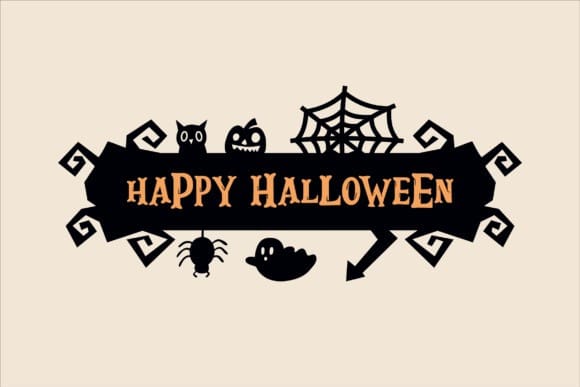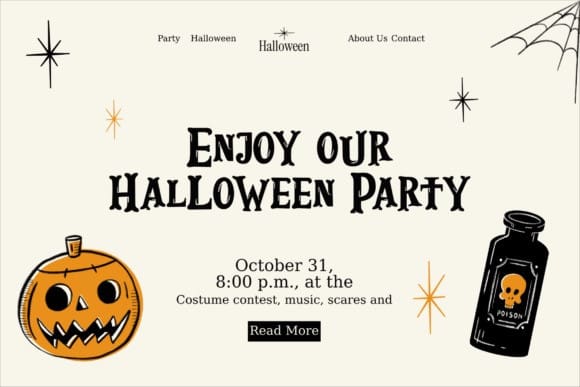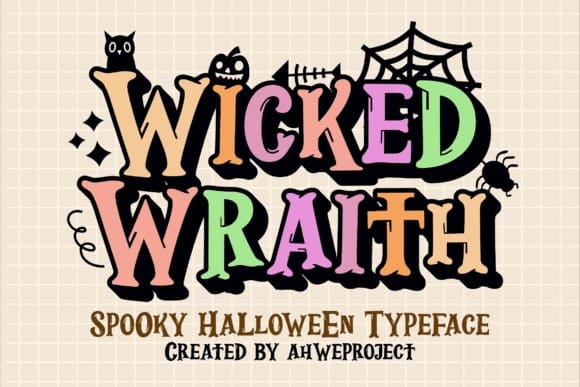
Wicked Wraith Font
Wicked Wraith Font – This charming font blends subtle gothic touches with a whimsical, ghostly flair. Its elegant, slightly irregular letterforms capture a delicate balance between the spooky and the magical, making it perfect for creating inviting Halloween-themed designs. Whether you’re crafting a bewitching event invitation or a playful seasonal greeting, Wicked Wraith adds a touch of mystical allure and gentle mystery to your projects.